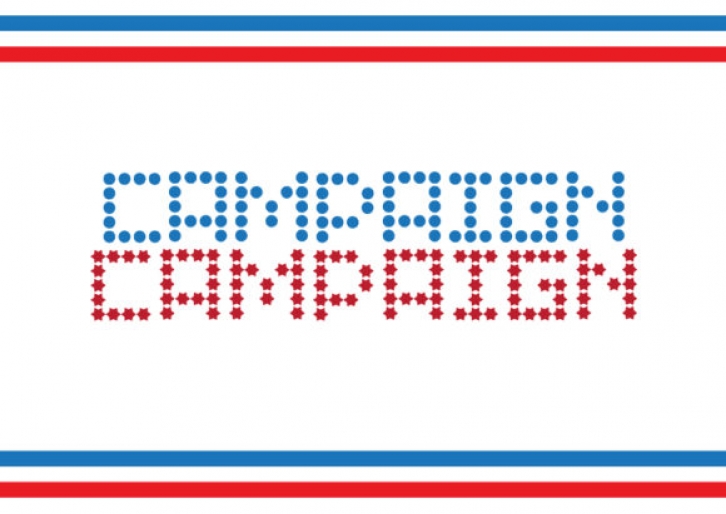
Campaign is an all uppercase font featuring a matrix base with both stars and dots. This election-themed display font will deliver any message with style and confidence.